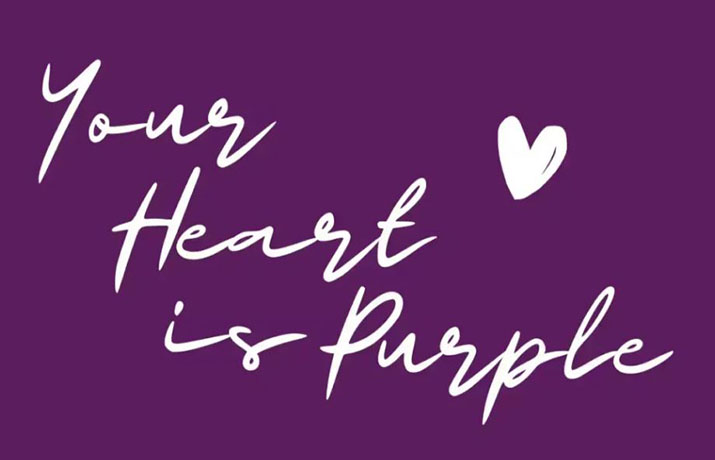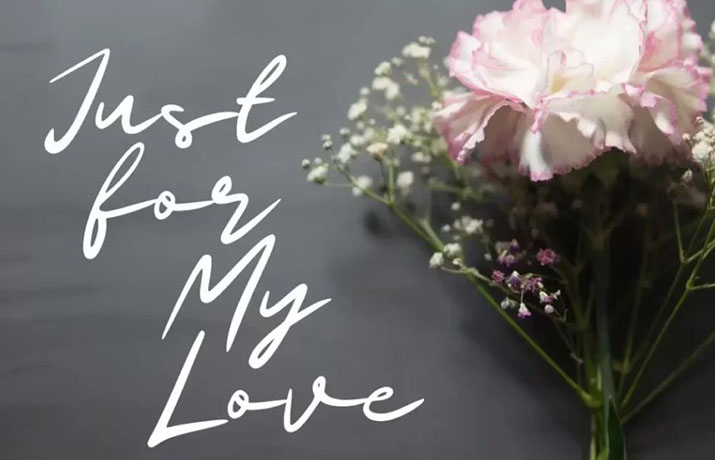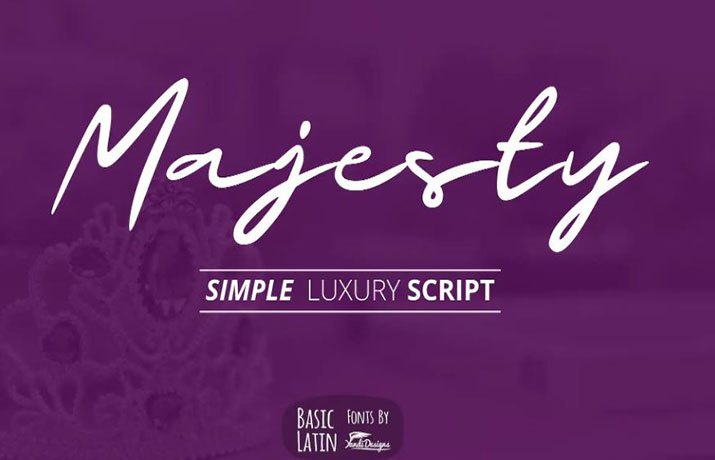
Majesty Font is a beautiful script hand-lettering typeface that features a modern character design. It was designed and published by YandiDesigns.
It has a modern elegant texture in which the designer adds natural flow with hand. Because all letters are handmade they didn’t follow proper baselines.
With this magnificent font help, you can create invitations, social media posters, greeting cards, flyers, signatures, logos, and more. Give your next project a personal touch with this modern font.
Style: | Script, Handwritten, Modern |
- This font is perfect for creating logos, labels, headlines, brand logos, invitation cards, birthday cards, book covers, signs, game graphics, product designs, product labels, birthday cards, kid’s elements, social media banners, birthday cards, and business cards for luxury brands and high-end products.
- With this cool font, you can create product designs, product packaging, game graphics, brand logos, special event cards, special quotes, taglines, horror quotes, comics, cartoon posters, and more.